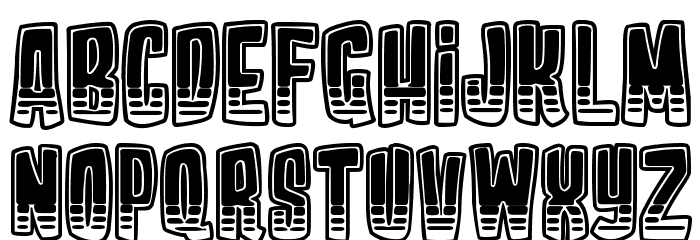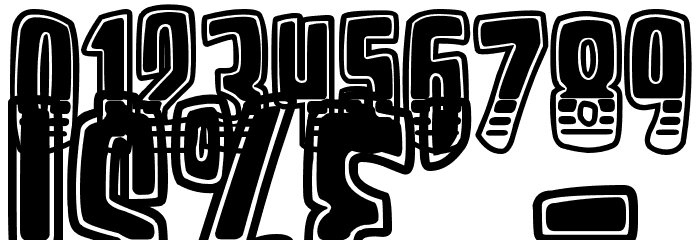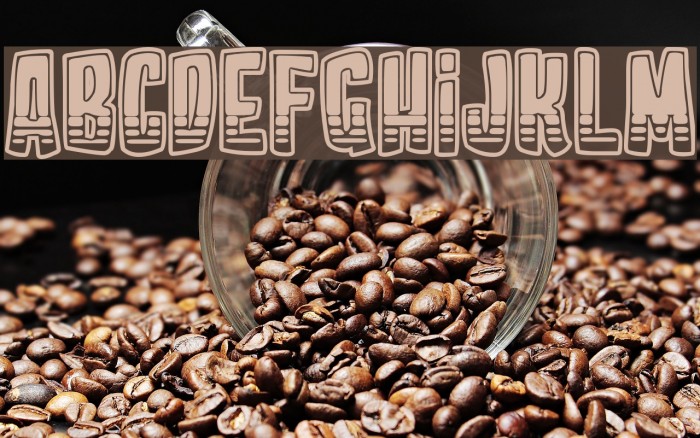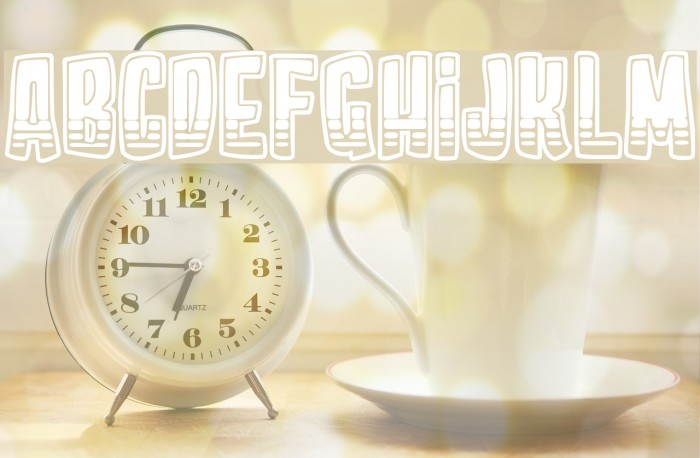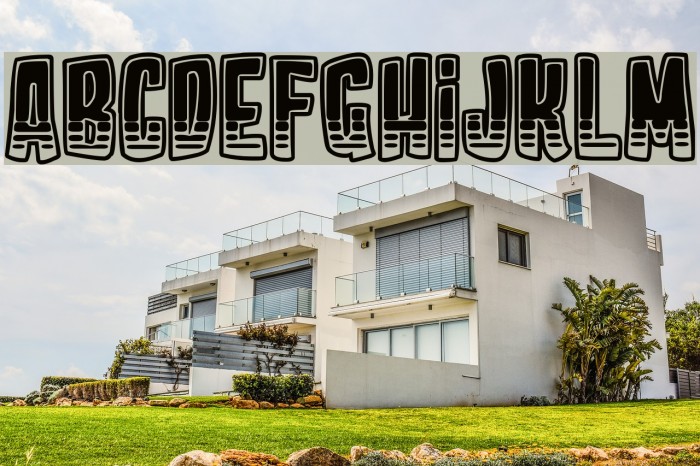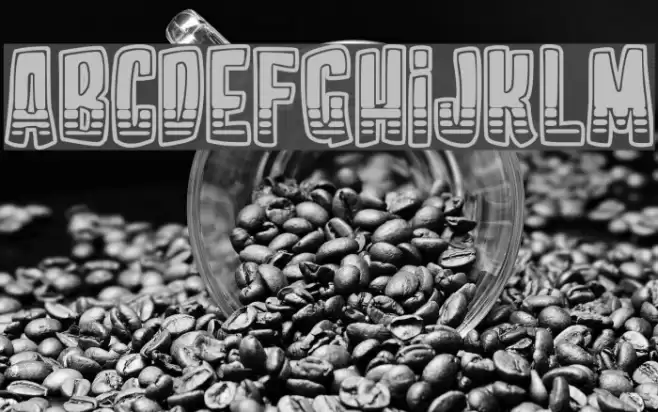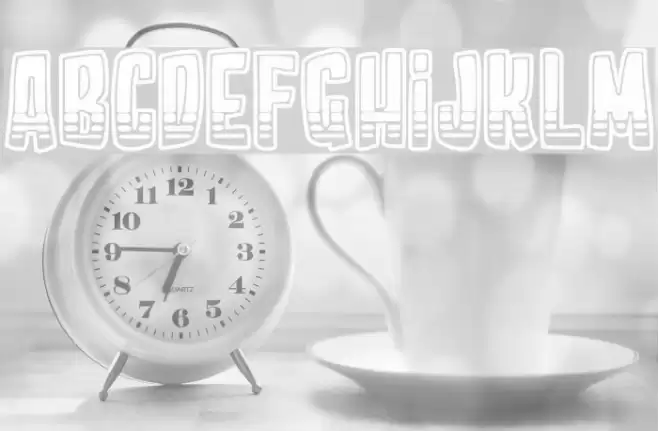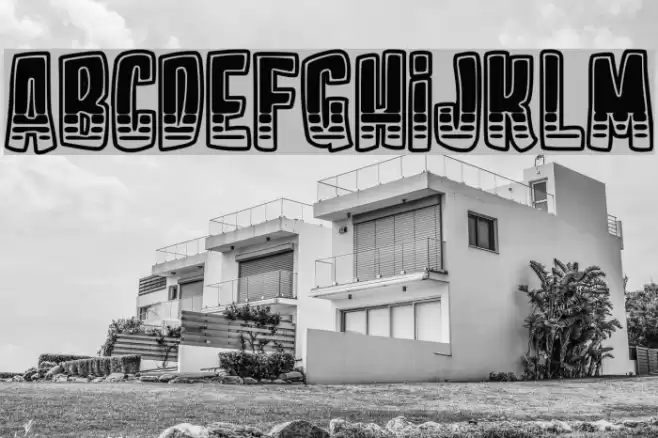
Strange Marvel Font
This font features a bold, playful design with a three-dimensional effect created by its layered, shadowed style. The characters are uppercase and lowercase letters, numbers, and a selection of special characters. Each letter is outlined with a thick black border, and the interior includes horizontal stripes that add depth and texture. The font's unique style is eye-catching and dynamic, making it ideal for creative and bold design projects. Its distinctive appearance is both modern and slightly retro, reminiscent of comic book lettering or vintage signage.
A bold, playful font with a three-dimensional, comic book style.
- Proposed Projects: Ideal for comic book covers, posters, children's books, and playful branding.
- Overall Style: Modern, Retro